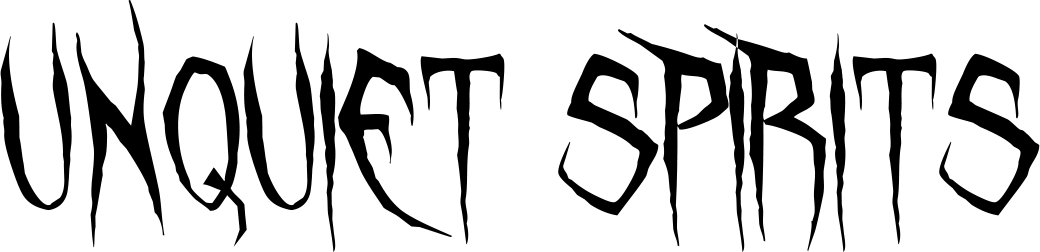
Unquiet Spirits Font
If you would like to use a fancy horror font for the typography you are planning to create; then you will find Unquiet Spirits interesting! This particular horror font offers slim characters that are sharp quirky, and your design will have a spooky, creepy feel.
Unquiet Spirits includes capital A to Z alphabets, numbers, and punctuations that look frightening. There are no lowercase letters available. This font is useful for Halloween designs, flyers, posters, brands, texts, and wherever you wish.
Created 2010, hand-lettered as a more controlled version of my other font Ghastly Panic.